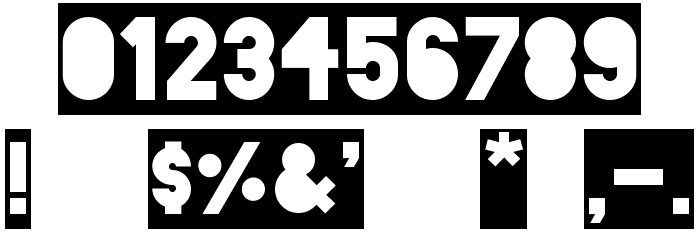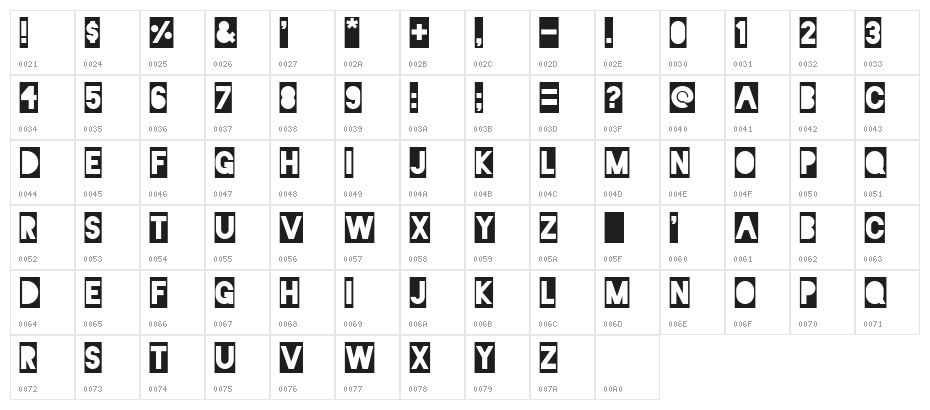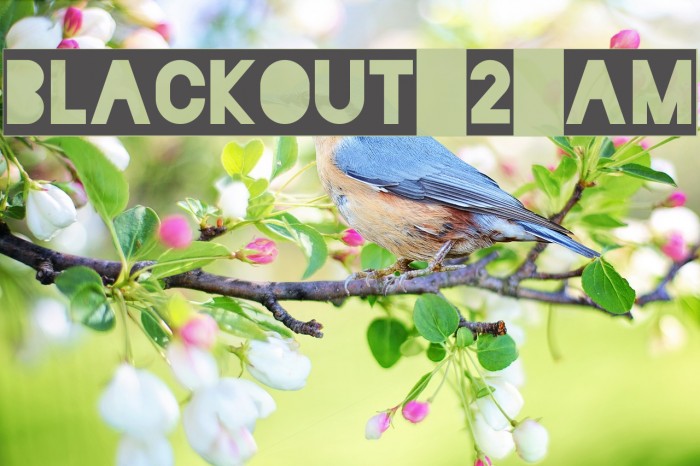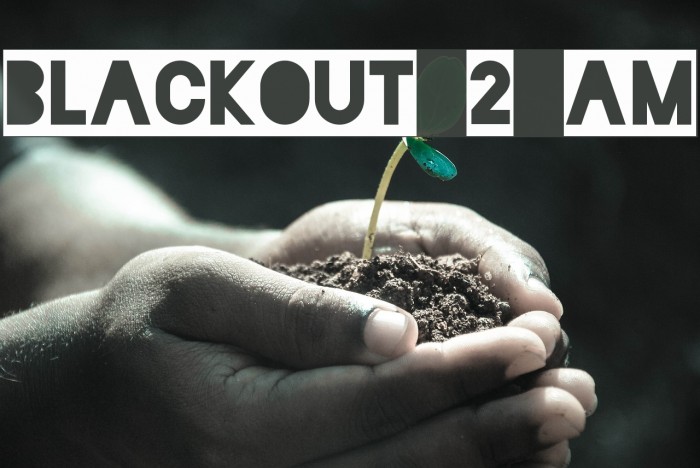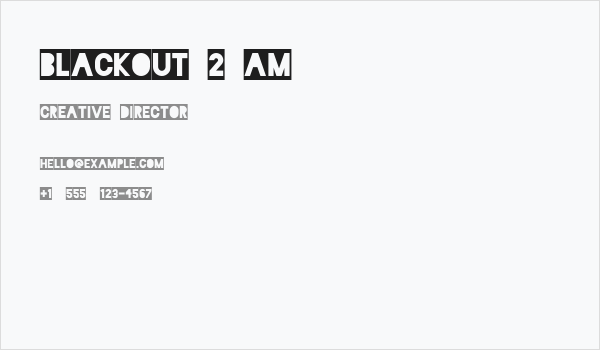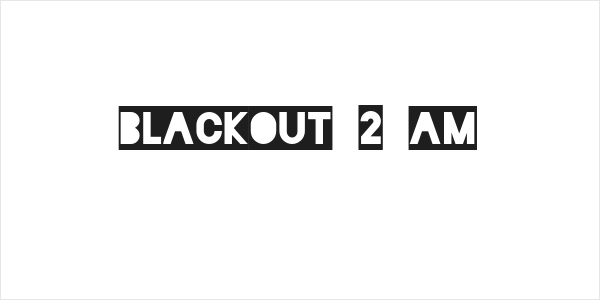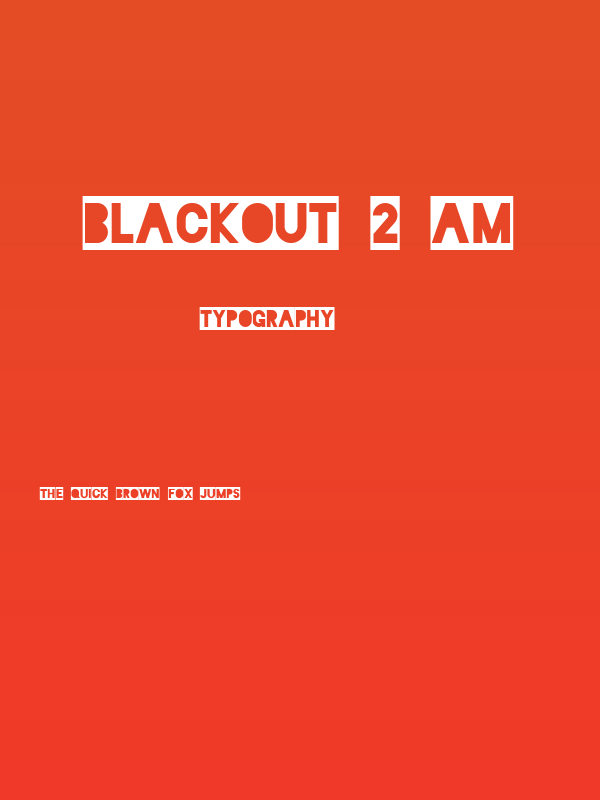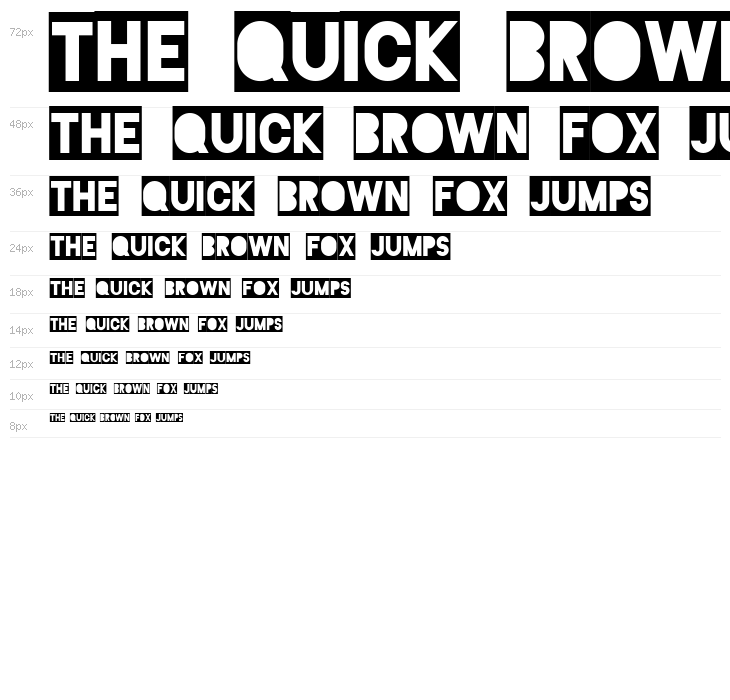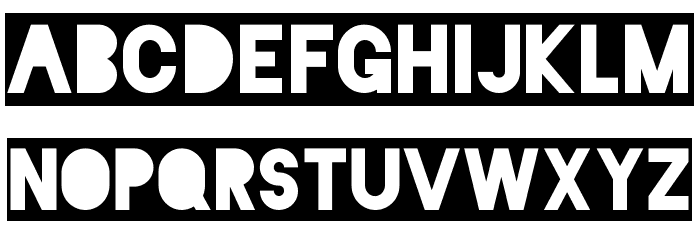
Blackout 2 AM Font
Blackout 2 AM Description
This bold and impactful font features a geometric and modern design with strong, clean lines and a high level of contrast between the thick strokes and the negative space. The characters are uppercase and numerals are included, with a distinctively wide and blocky appearance. The font's style is reminiscent of stencil or cut-out designs, making it highly suitable for attention-grabbing headlines or signage. The sharp angles and uniform thickness contribute to its assertive and contemporary aesthetic, while the spacing between characters is tight, enhancing its bold presence.
| Use Case | Headlines, Logos, Signage |
| Proposed Projects | Ideal for posters, headlines, signage, branding, and any project requiring a strong visual impact. |